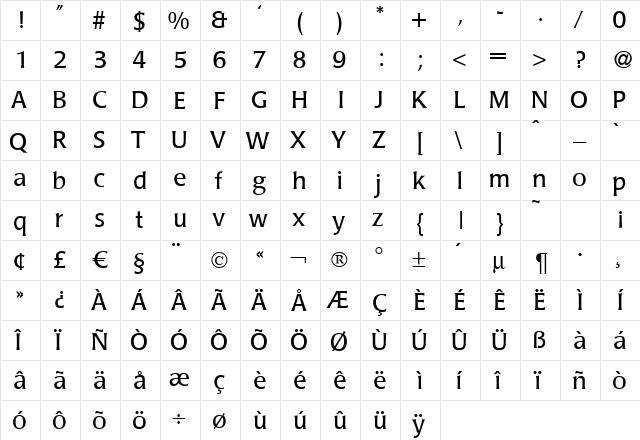
PoemLavish Regular Font Preview
PoemLavish Regular
Design Context for PoemLavish Typeface
PoemLavish takes a measured approach to typography — its balanced proportions and neutral character make it a reliable workhorse for both digital and print work.